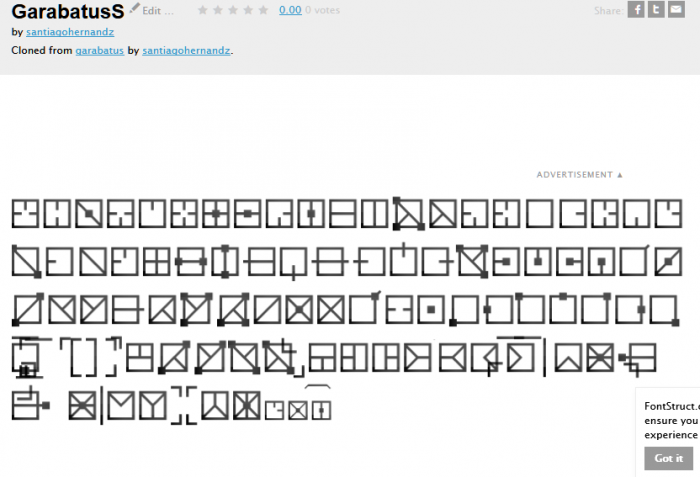
I don't like my lower case 'a'. Please make suggestions :)
Lower the height of the right half by 2 bricks... (1 brick = 1 grid square)
N is a bit illegible
Its a tricky one mate. one option might be to extend the right side all the way to the top to create some sense of extra flesh in the bottom of the glyph, giving you perhaps a chance to open it up a bit, making some sort of a legs idea, like you did with R.
Oh I have to learn reading better, I completely mixed op lowercase and uppercase. So nevermind my worthless suggestion! #oops
Some glyphs and variations are in Garabatuss...
Tha several here yes. Example: googleben1, in Fezian, and splash.
A font is greater than the sum of its letters. Fonts are usually focused on what the words and sentences made from them look like rather than the individual letters.
While I think the numbers are not as successful as the letters,  this is a really sweet piece of design, one that I really like and often think about.  It would seem to embody Diana Vreeland's definition of elegance as 'refusal'.